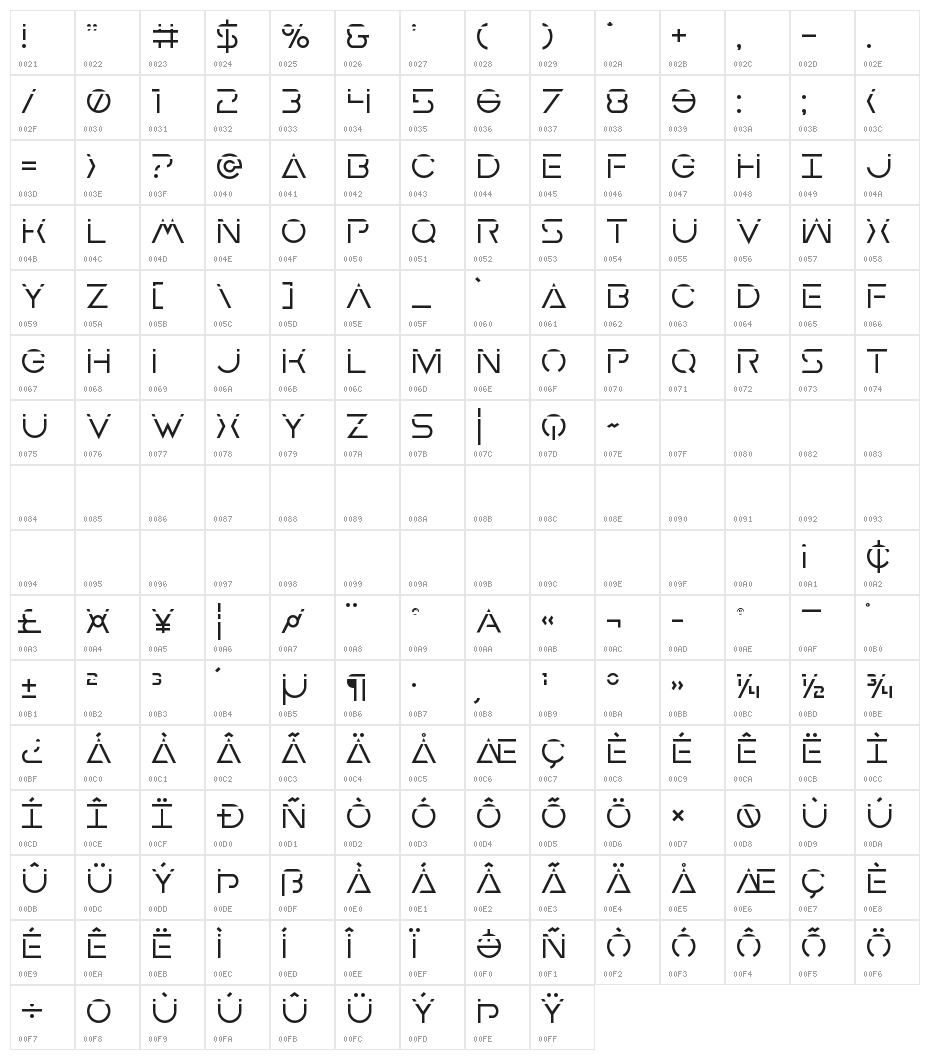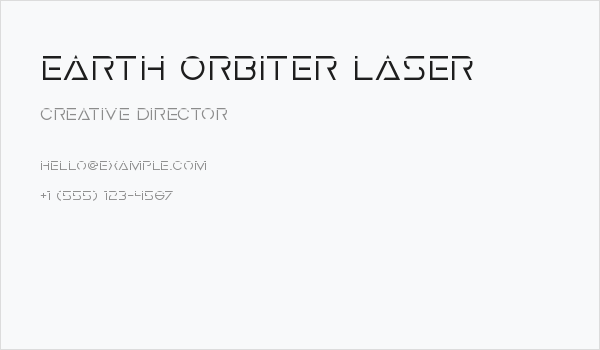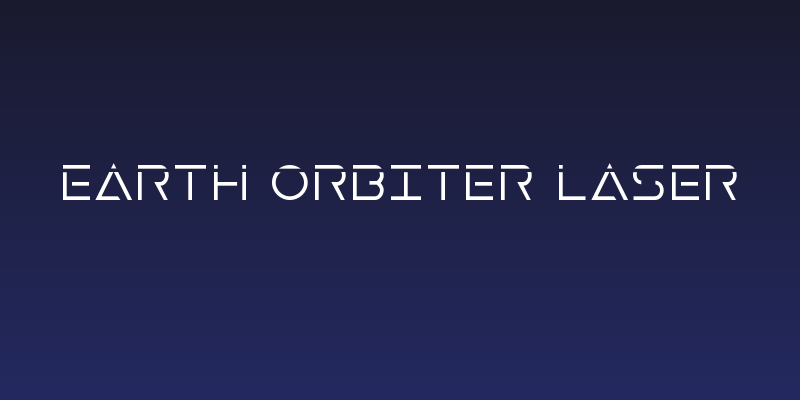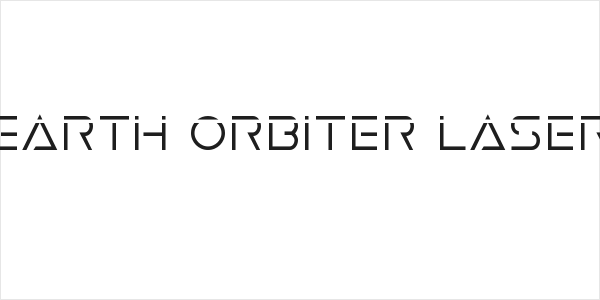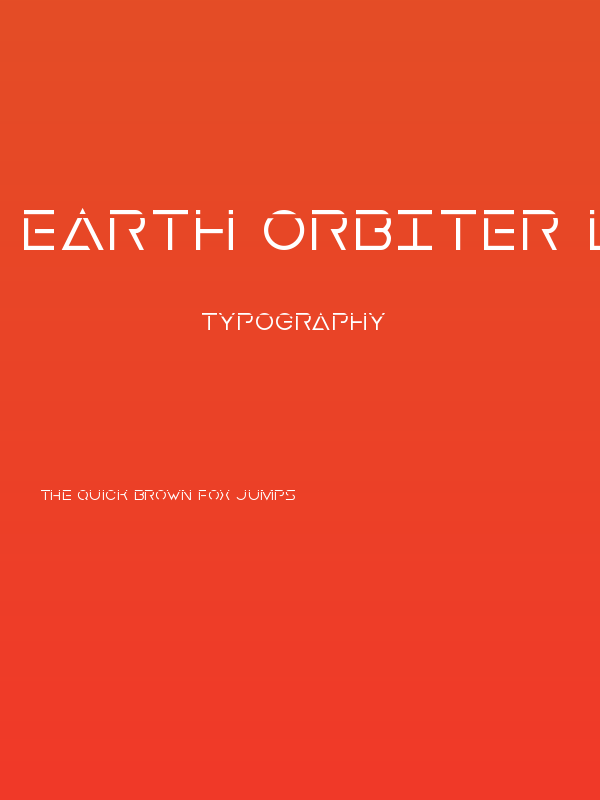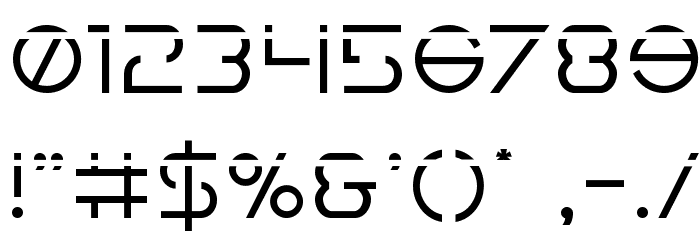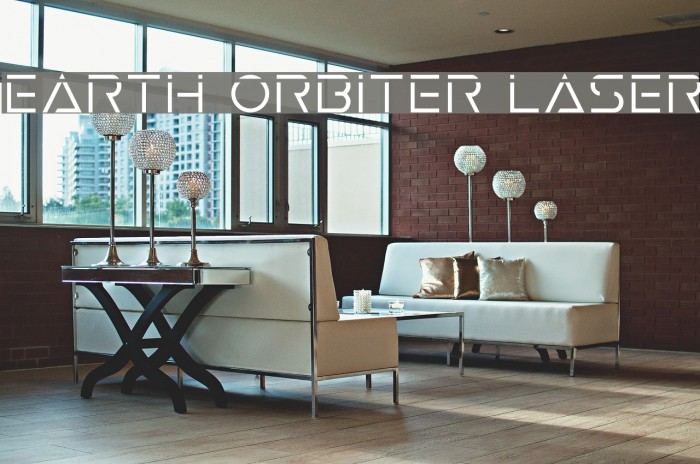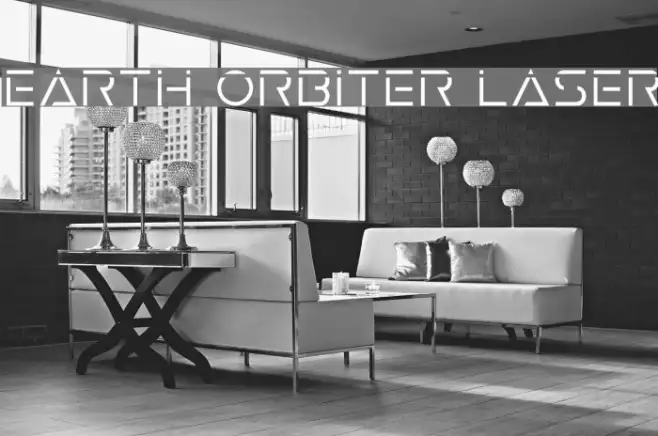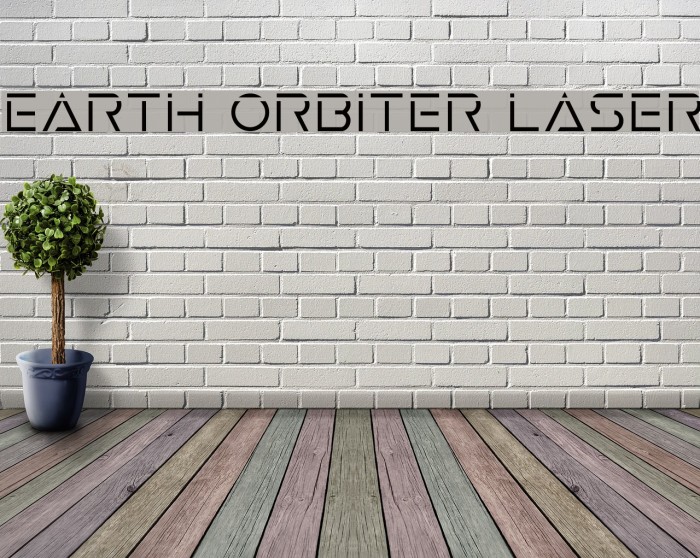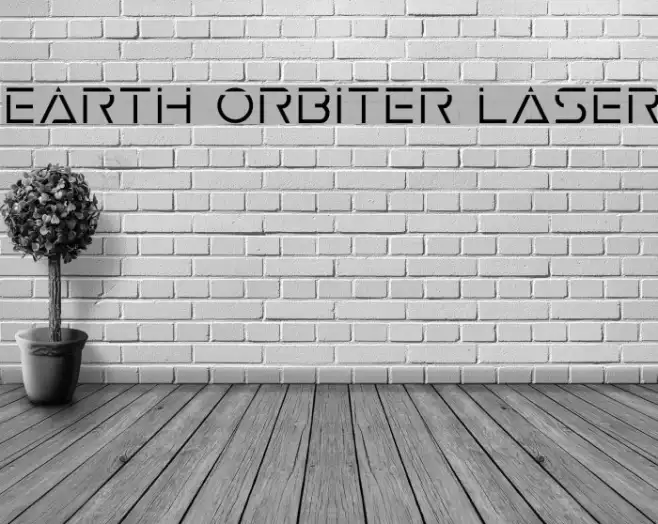
Earth Orbiter Laser Font
Earth Orbiter Laser Description
This font features a futuristic and geometric design, characterized by its sharp angles and clean lines. The letters are constructed with a combination of straight edges and circular cutouts, giving it a distinct, modern appearance. The uppercase and lowercase letters maintain a consistent style, with a uniform height and width that enhances readability. Numbers and special characters follow the same design principles, ensuring a cohesive look across all elements. The font's unique style makes it suitable for projects that require a contemporary and tech-inspired aesthetic.